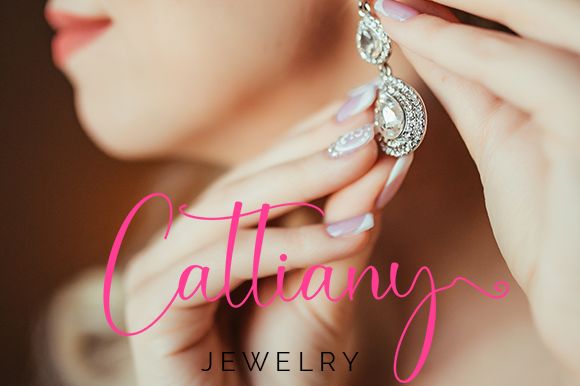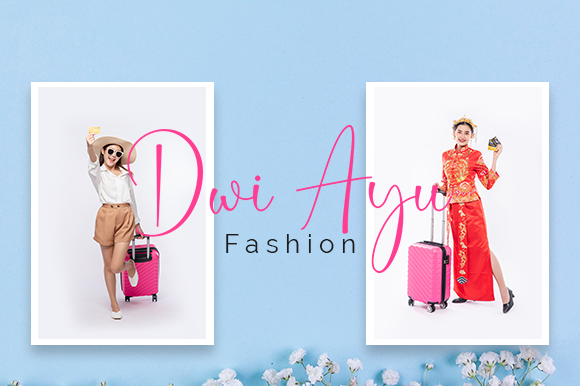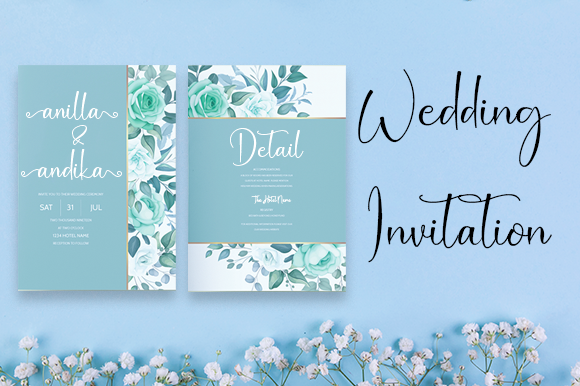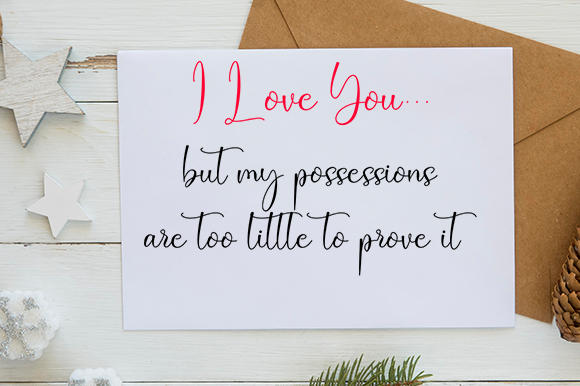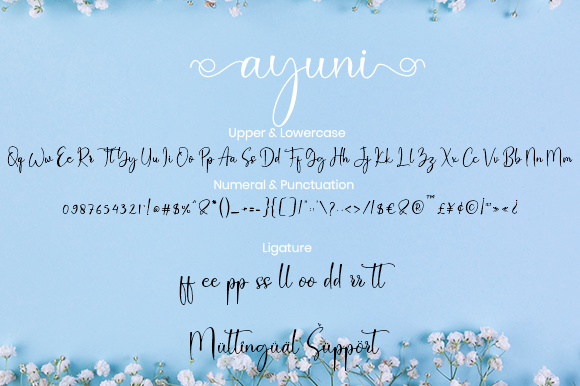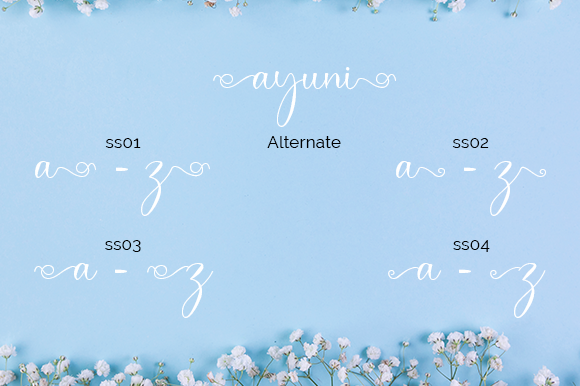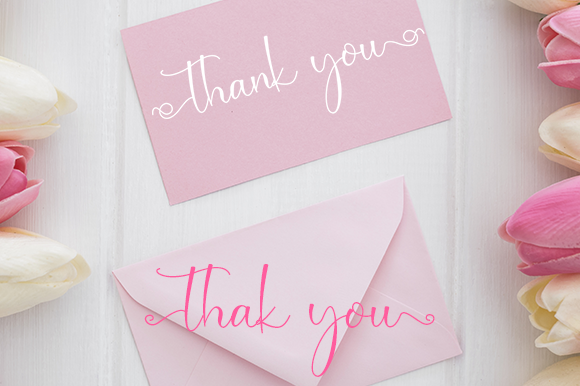
Ayuni Font
About Ayuni Font
Ayuni is a casual and friendly script font that brings a sense of warmth and approachability to your designs. With its smooth and flowing style, it adds a touch of playfulness and charm to various creative projects. Whether you’re working on crafts, invitations, logos, or any other design, Ayuni is a versatile choice that will enhance your creations.
The simplicity and ease of use of Ayuni make it a great font for mixing and matching with different design elements. Its clean lines and legible characters make it suitable for both digital and print applications. Whether you’re creating handmade cards, posters, social media graphics, or any other craft design, Ayuni adds a delightful touch that resonates with a friendly and casual aesthetic.
Ayuni’s PUA encoding allows for easy access to all the glyphs and swashes, giving you the freedom to customize and personalize your designs. With a wide range of alternate characters and decorative elements, Ayuni provides endless possibilities for adding flair and individuality to your projects. Whether you want to create unique letterforms or embellish your designs with stylish swashes, Ayuni’s versatility empowers you to express your creativity.
Incorporating Ayuni into your designs brings a sense of joy and informality, making your projects more engaging and inviting. Its casual and friendly nature is perfect for adding a personal touch to your craft designs, creating a connection with your audience, and leaving a lasting impression.
Explore the potential of Ayuni and let it inspire you to create beautiful and captivating designs. With its casual and friendly script font, Ayuni adds a touch of playfulness and charm to any project. Embrace its simplicity and enjoy the creative freedom it offers.